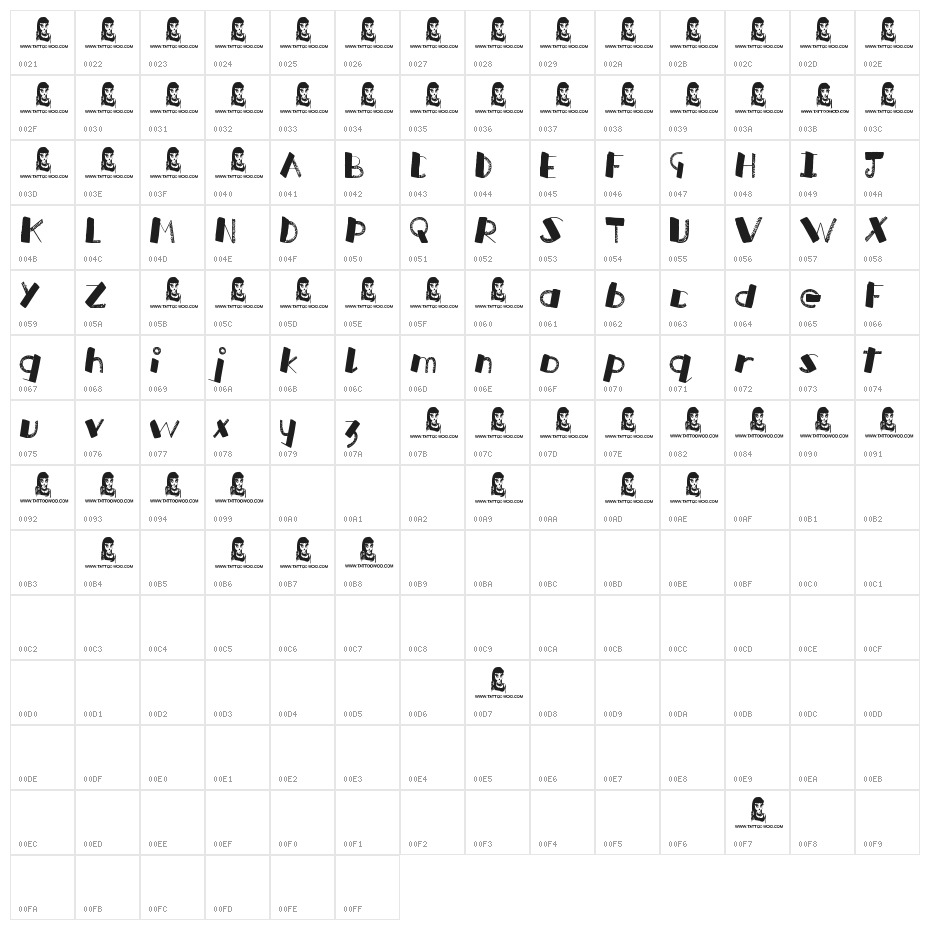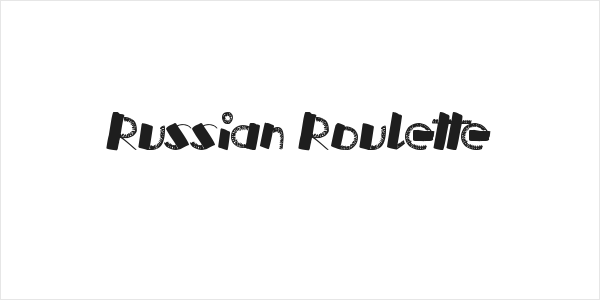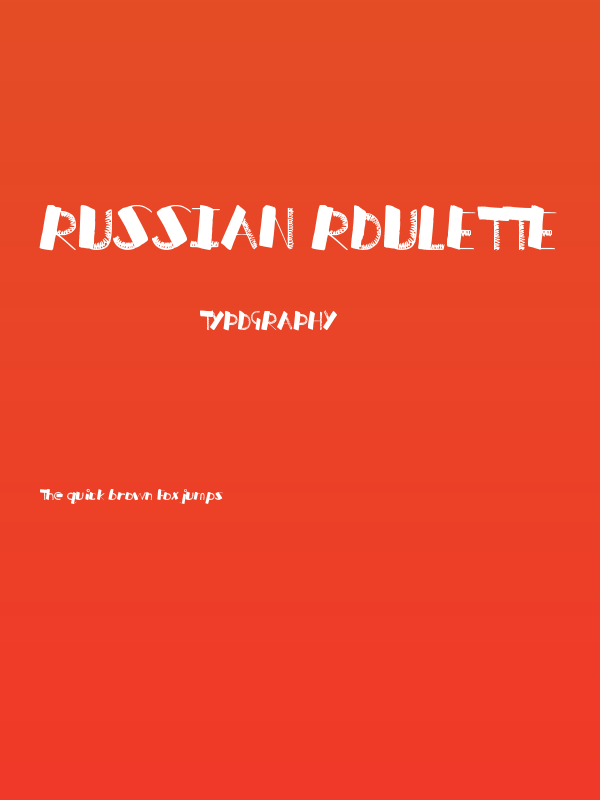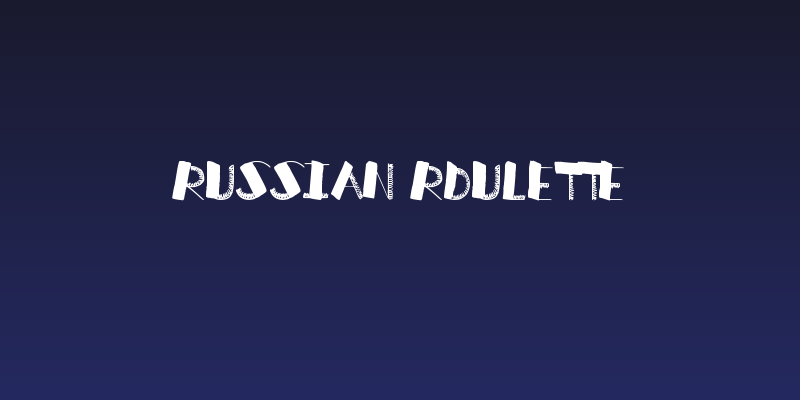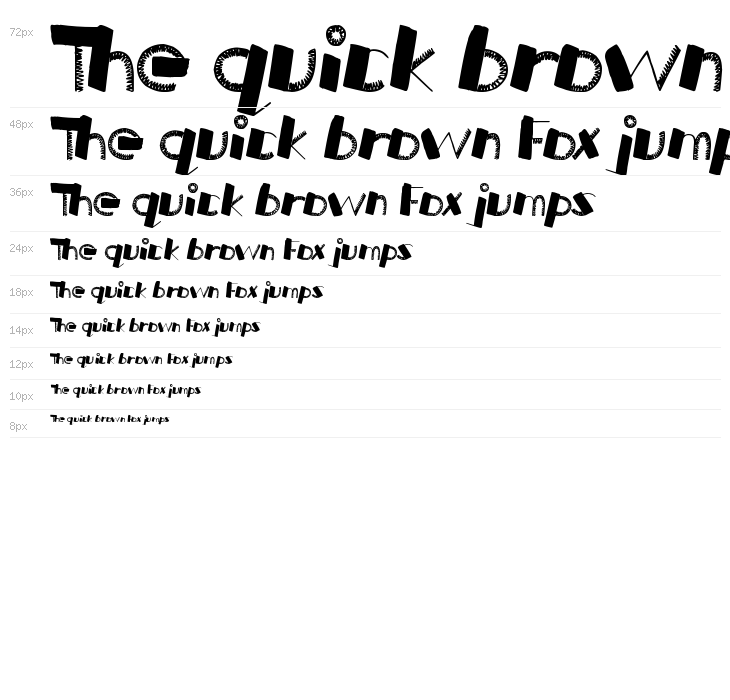
Russian Roulette Font
Russian Roulette Description
This font features a bold and edgy design with a distinct, hand-drawn appearance. The characters are crafted with a combination of thick, solid strokes and intricate, sketch-like details, giving it a unique and rebellious look. The uppercase and lowercase letters maintain a consistent style, with angular forms and a playful yet aggressive aesthetic. The font's unconventional design makes it stand out, with each letter exhibiting a dynamic and energetic feel. The special characters are integrated seamlessly, maintaining the overall theme of the font.
| Proposed Projects | Ideal for music album covers, streetwear branding, event posters, and edgy graphic designs. |